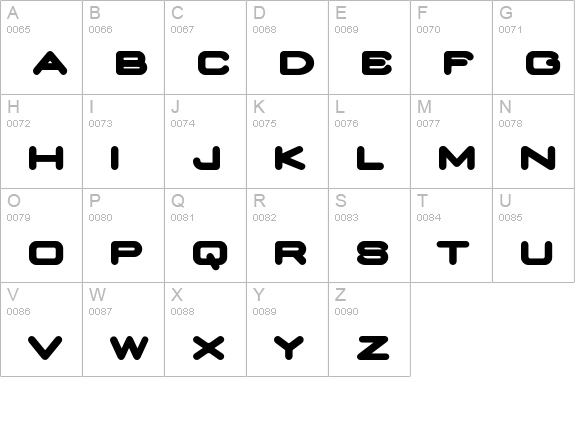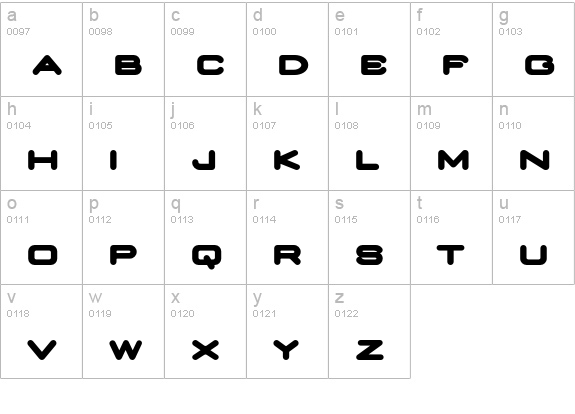
Nedian-ExtraBold is an extra-heavy, attention-grabbing variant in the Nedian typeface family \xE2\x80\x94 well suited to high-impact headlines, posters, and bold branding.
Nedian-ExtraBold font is a striking and bold typeface that commands attention with its strong and impactful presence. With its thick strokes and powerful letterforms, this font is perfect for making a statement in headlines, titles, and branding materials. The Nedian-ExtraBold font exudes confidence and modernity, making it an excellent choice for projects that require a bold and contemporary look. Best of all, Nedian-ExtraBold font is available for free download at FontsMarket.com. This means you can add this impressive font to your collection without any cost, making it a valuable resource for designers, creatives, and anyone looking to elevate their typography game. Don't miss out on the opportunity to enhance your projects with the bold and captivating Nedian-ExtraBold font - download it for free today at FontsMarket.com!